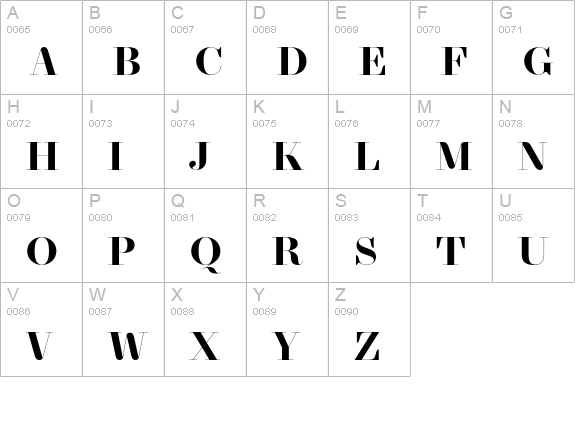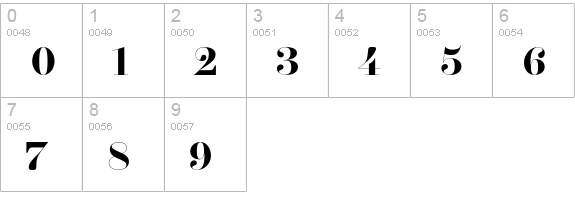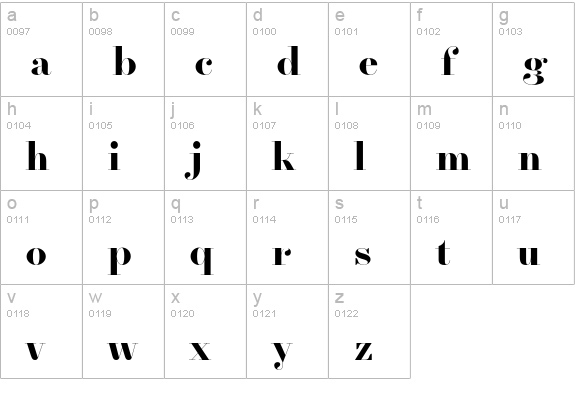
NewParis KingSize Bold Font Details
NewParis KingSize Bold is a strong, high-contrast variant in the NewParis typeface family \xE2\x80\x94 well suited to headlines, attention-grabbing titles, and strong calls-to-action.
Introducing NewParis KingSize Bold font, a striking and powerful typeface designed to make a bold statement. With its strong and commanding presence, this font is perfect for headlines, titles, and any design project that requires a touch of elegance and sophistication. The NewParis KingSize Bold font features clean lines and sharp edges that exude confidence and style. What's even better is that the NewParis KingSize Bold font is available for free download at FontsMarket.com. You can easily access this stunning font and enhance your projects with its unique charm and versatility. Whether you're designing a poster, logo, or website, the NewParis KingSize Bold font will elevate your work to new heights. Don't miss out on the opportunity to add this exquisite font to your collection today!